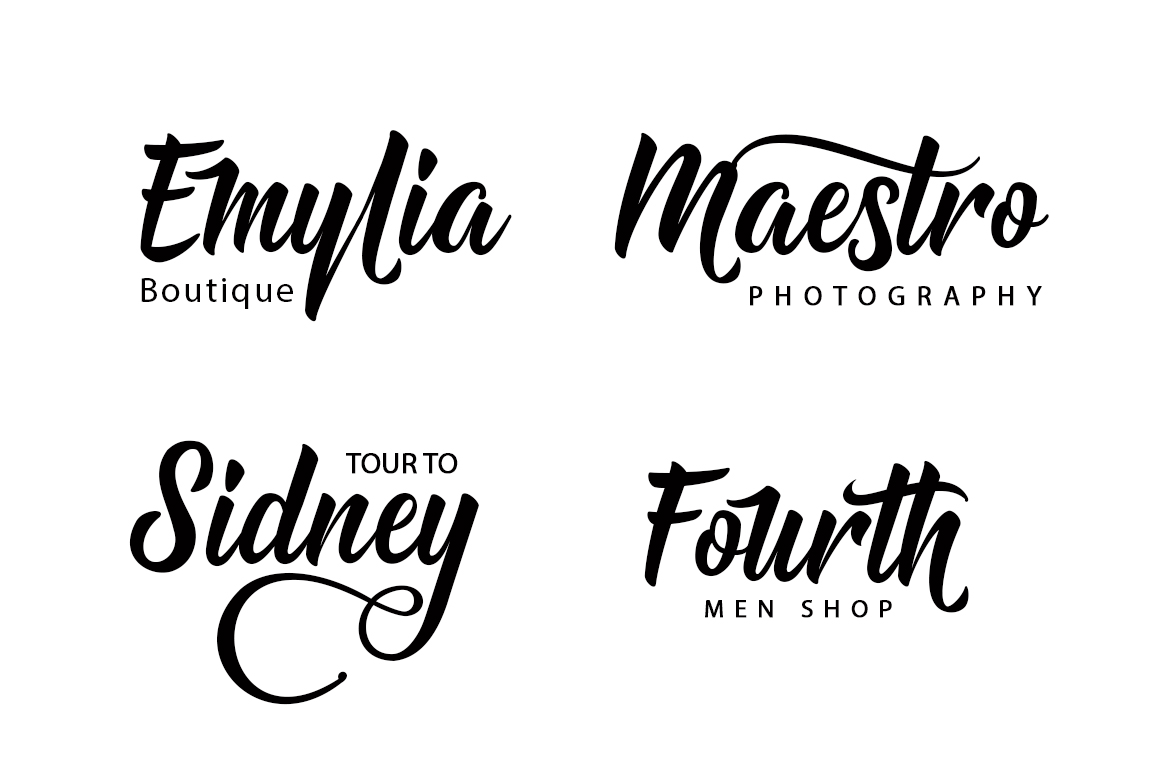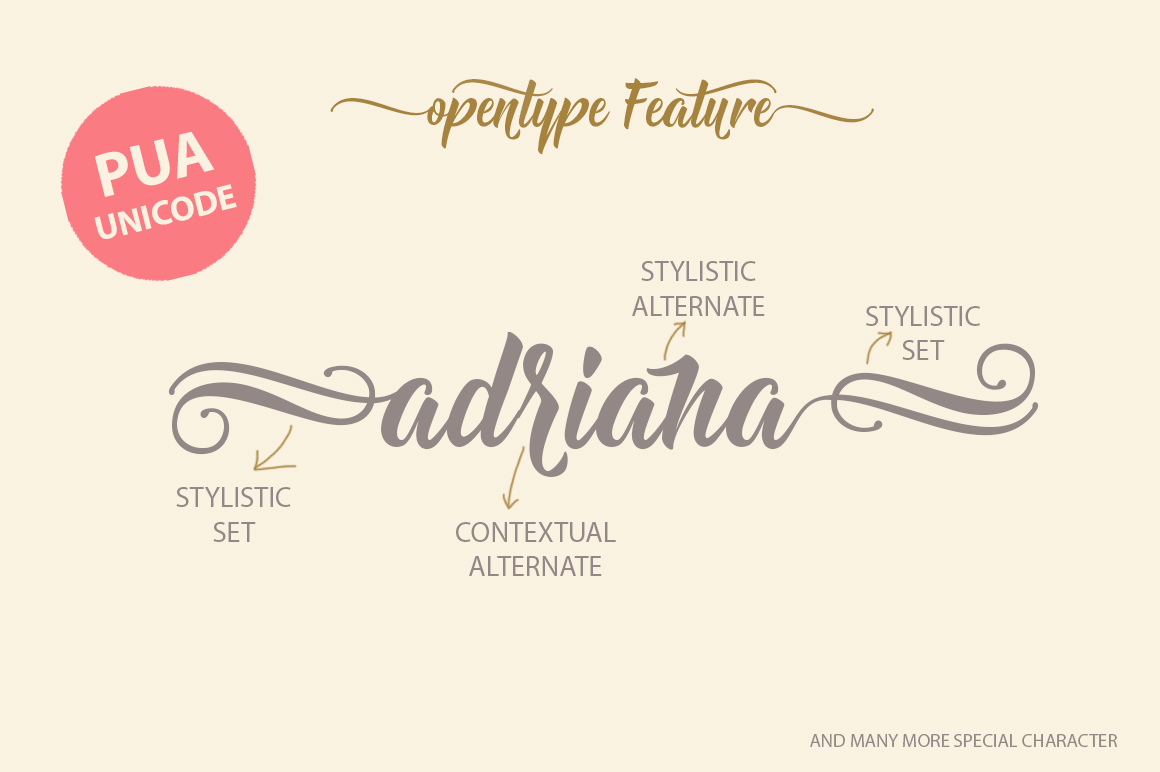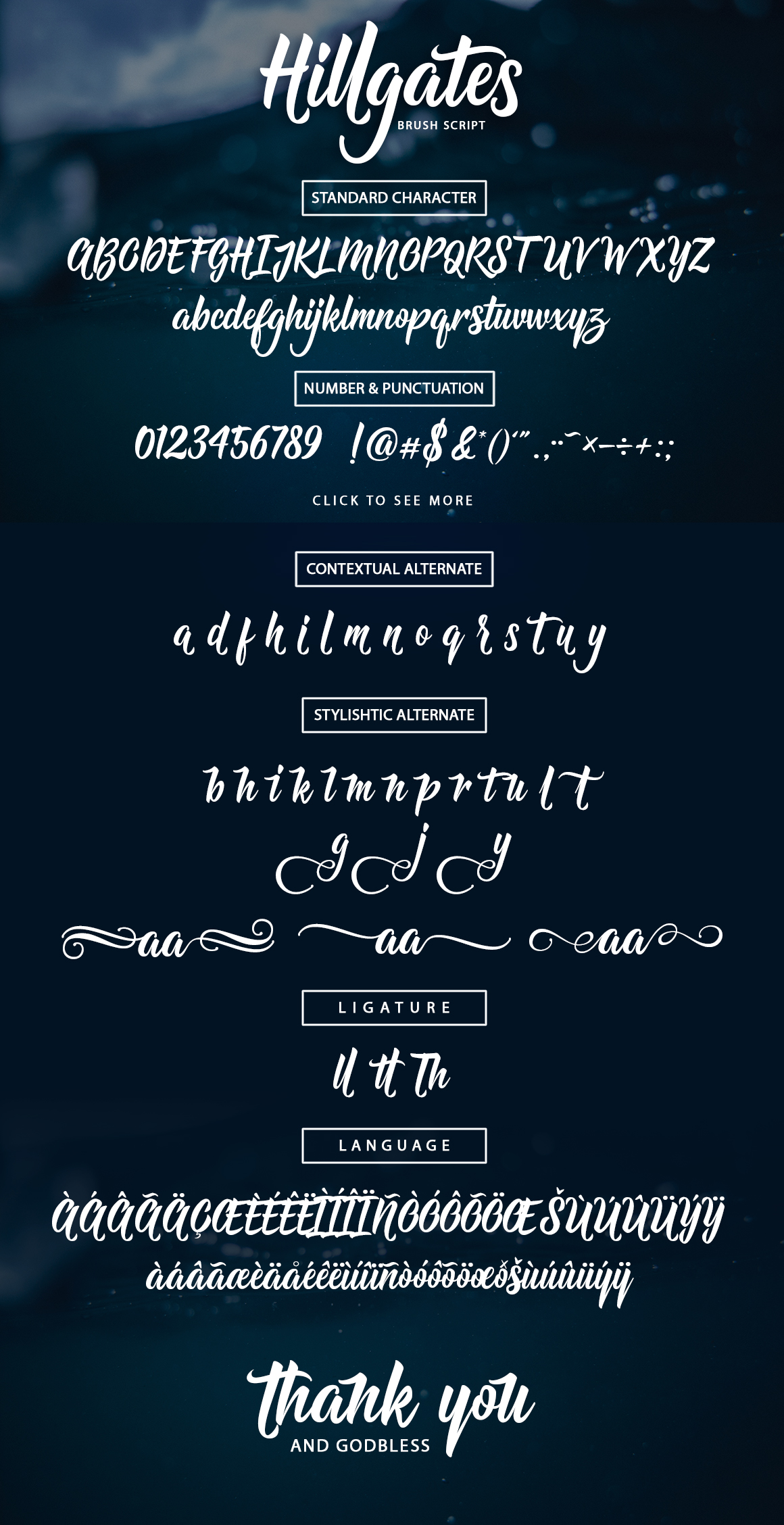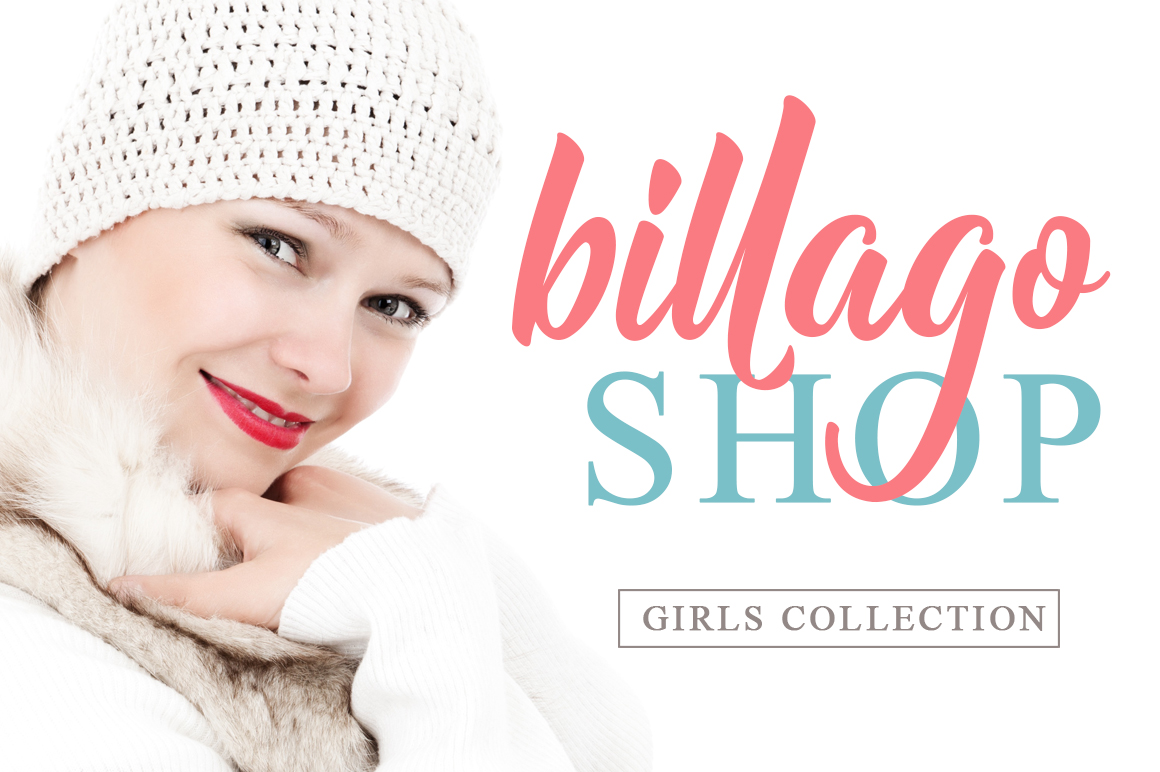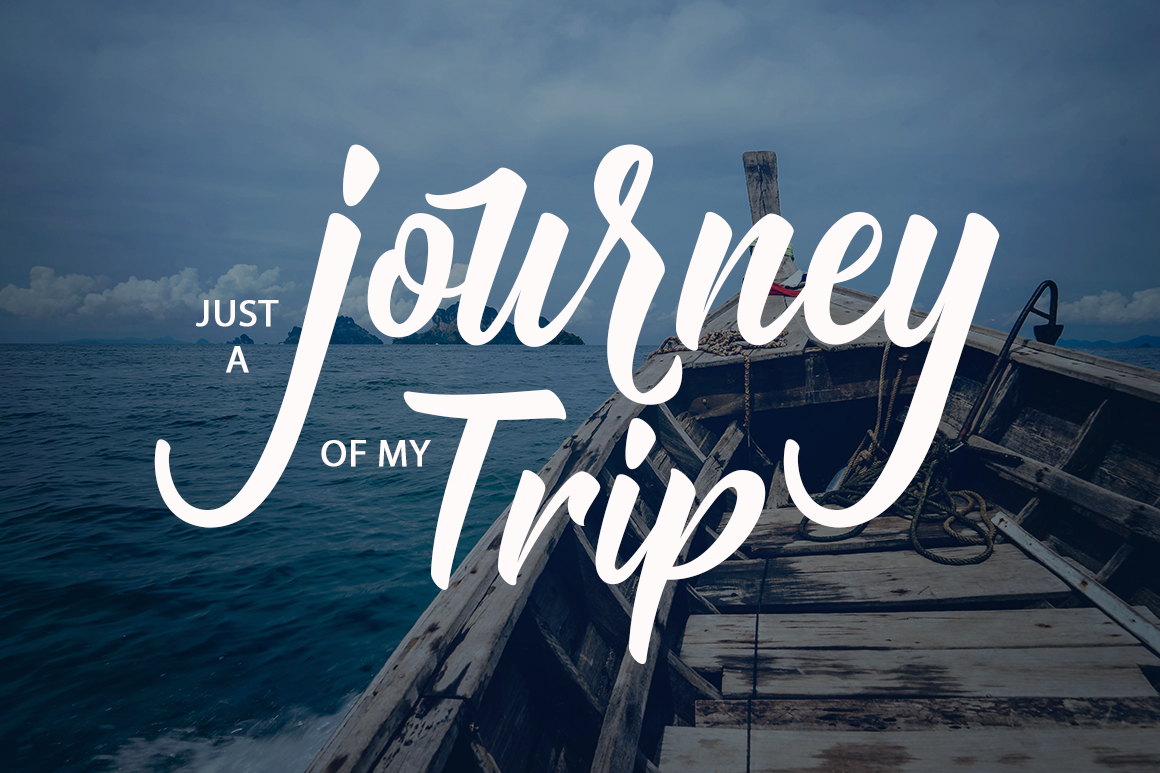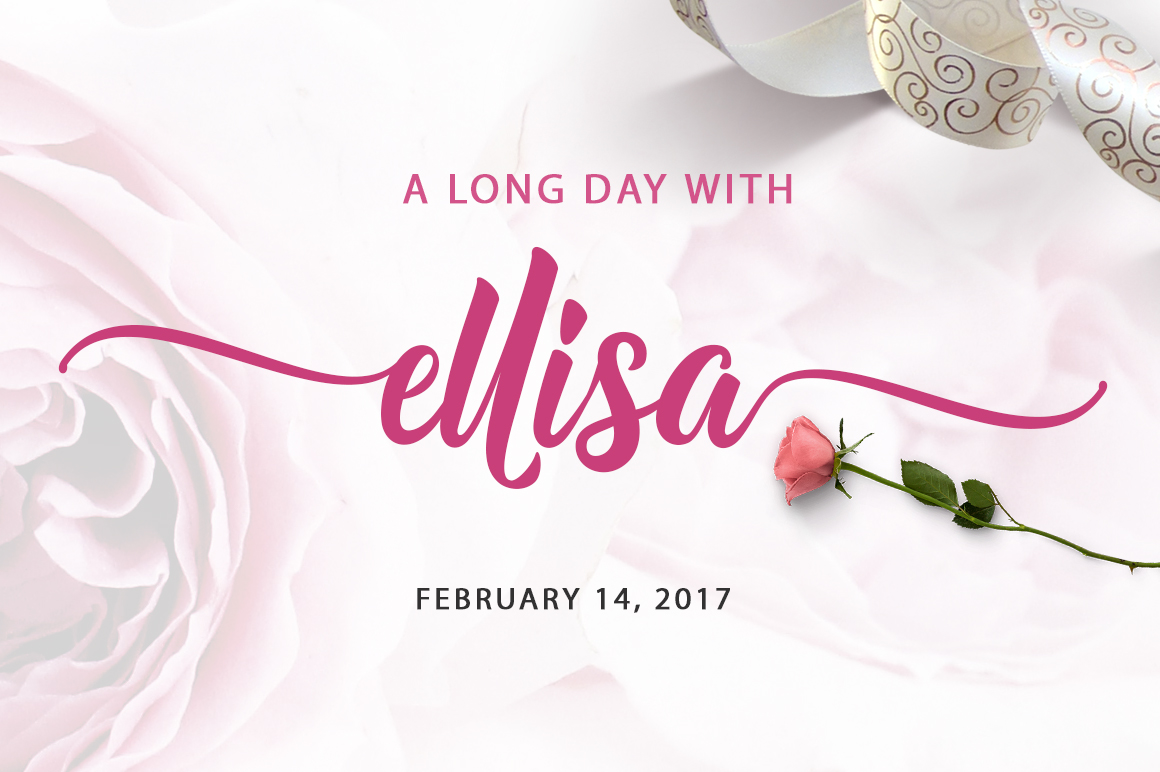
About Hillgates Font
Hillgates is a hand-brushed script with OpenType features such as stylistic alternates, contextual alternates, ligatures, and more. The bold letter makes for great expressive designs. The font is suitable for logos, letterhead, apparel, labels, headlines, and more.Add this lovely freebie to your creations and take your designs to the next level!